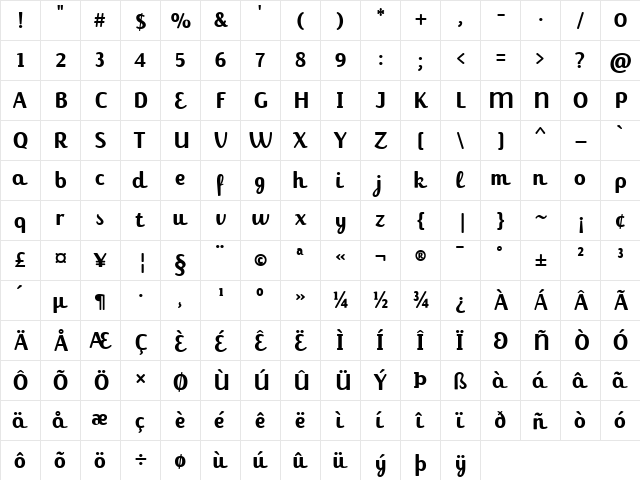
JackieBold Bold Font Preview
JackieBold Bold
Design Context for JackieBold Typeface
JackieBold offers clean, dependable letterforms without strong stylistic allegiance, making it a practical choice for designers who need flexibility. Its bold stroke weight gives it real presence on the page.